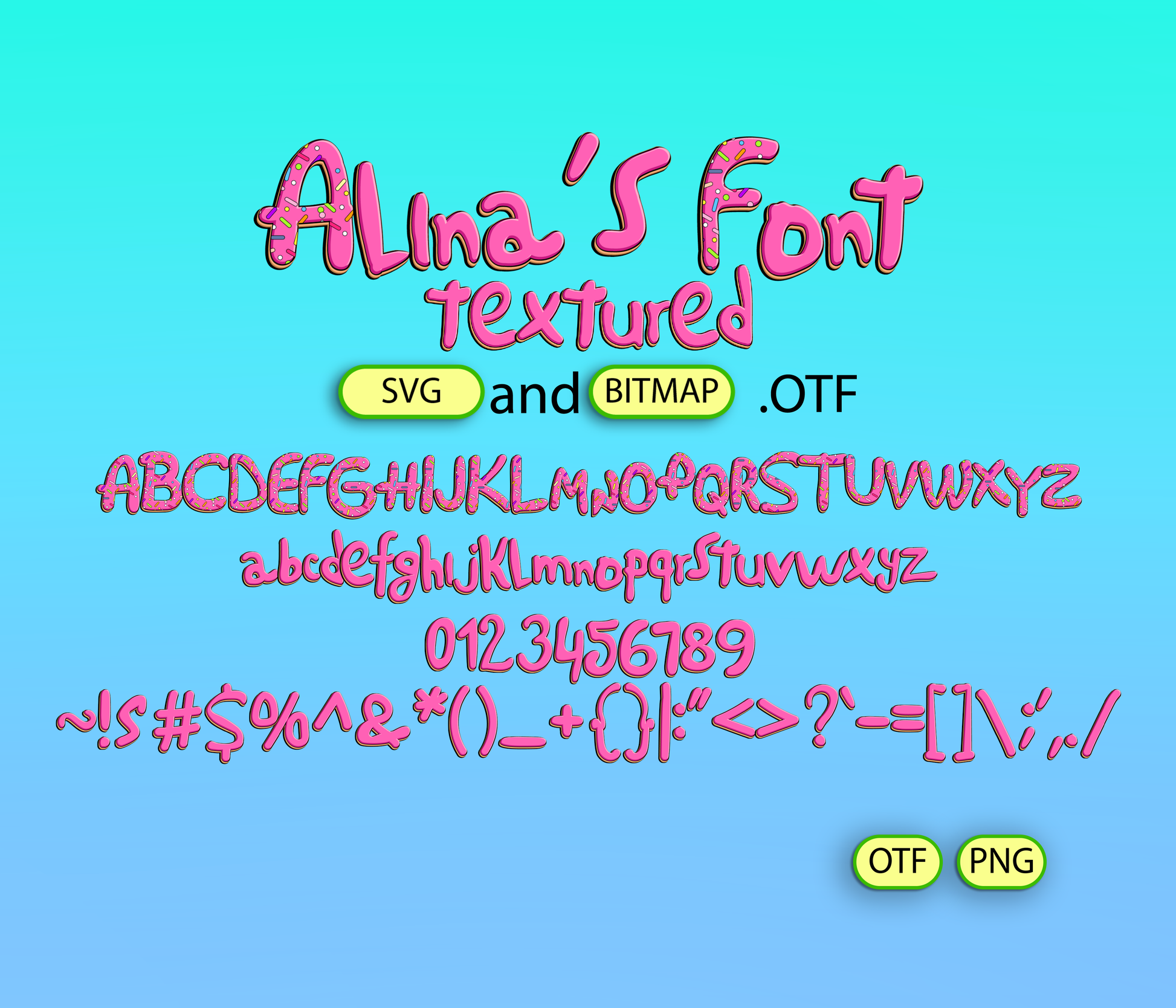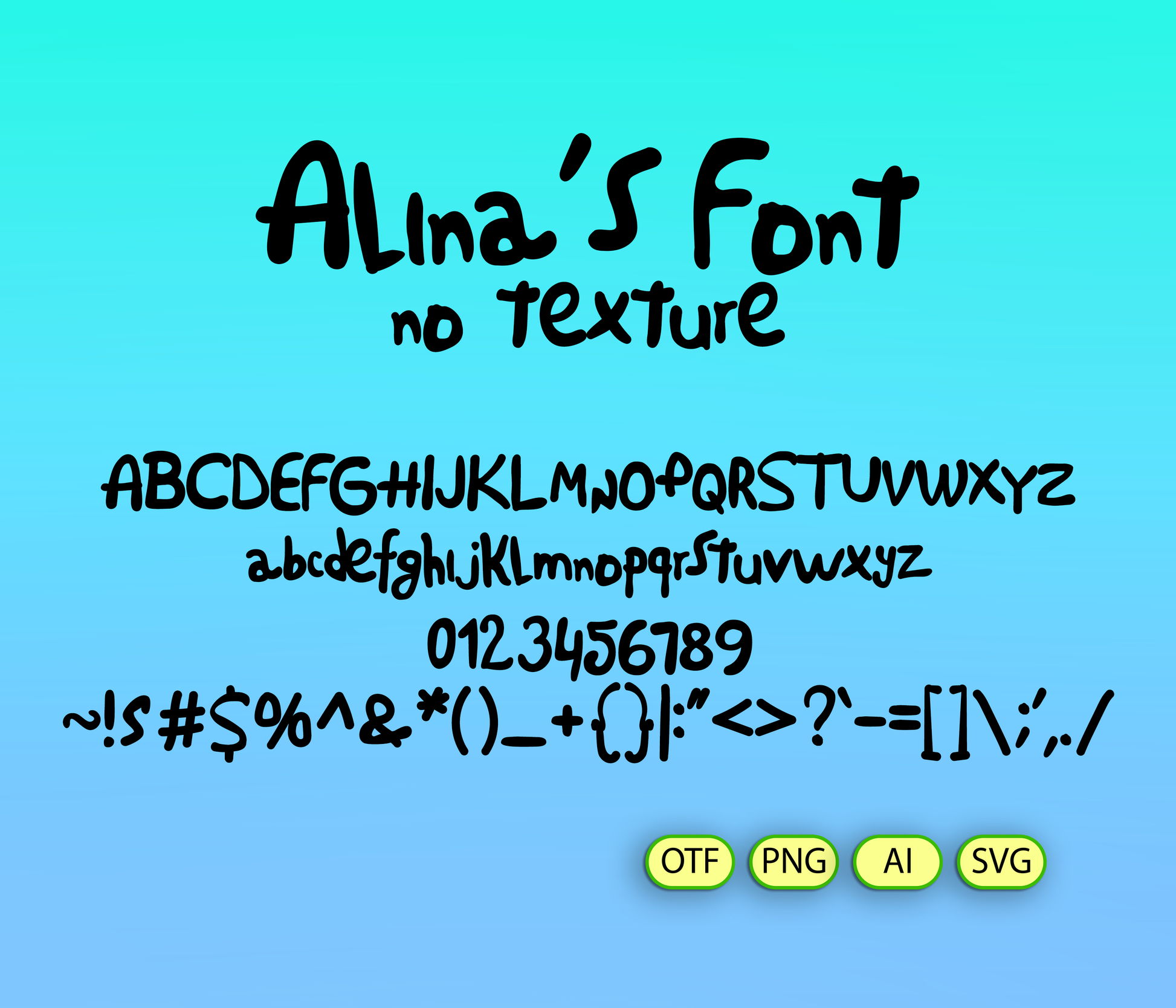
Springfield Cartoon Comedy Style Family Font Textured
Springfield Family Font Cartoon Comedy Style
Enter the hilarious world of animated suburbia with our Springfield Family font, capturing the essence of satirical humor and iconic television comedy. Perfect for cartoon enthusiasts, comedy content creators, animated brand developers, and nostalgic entertainment specialists, this font brings the vibrant, irreverent energy of beloved animated sitcoms to your projects. Create laugh-inducing promotional materials, comedy-themed merchandise, or playful digital content with the bold, exaggerated spirit of classic American animation and satirical family entertainment.
Our Springfield Family font features rounded, cartoon-inspired letterforms and playful character that reflects the colorful yet satirical aesthetic of animated television and comedy entertainment culture. Ideal for:
- Comedy Events: Create attention-grabbing comedy show posters, animated convention signage, and humor-themed gathering materials with authentic cartoon appeal
- Entertainment Design: Perfect for animation studio branding, comedy podcast graphics, and satirical content layouts that celebrate animated humor tradition
- Digital Media: Enhance comedy blogs, entertainment websites, and humorous social media with headers that express playful irreverence and animated energy
- Fan Content: Add genuine character to tribute materials, parody projects, and promotional content for comedy or animation-themed events
- Personal Projects: Bring cartoon charm to party decorations, humorous crafts, and artistic endeavors inspired by the aesthetics of classic animated comedy culture